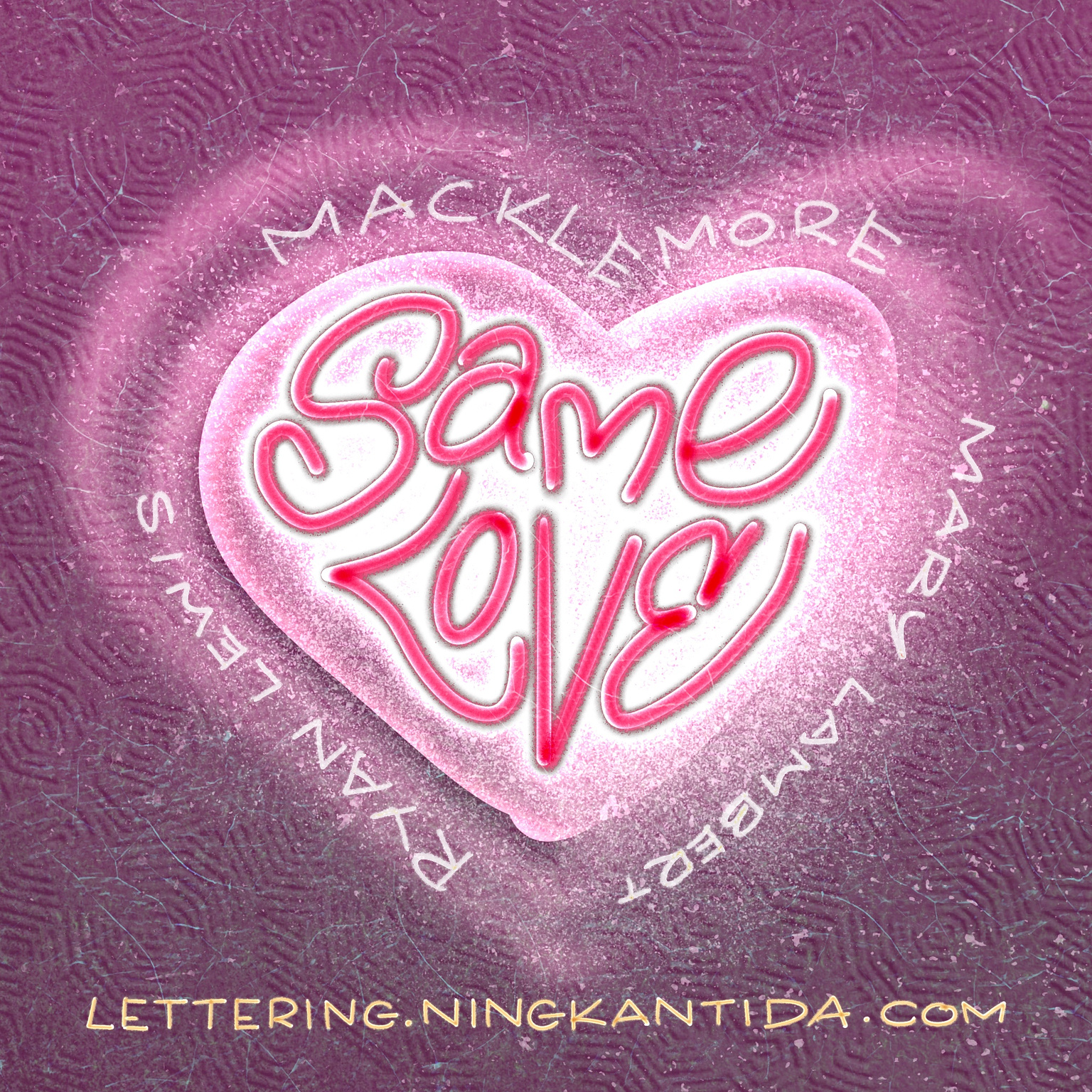
Pride Month Music 11-Same Love by Macklemore & Ryan Lewis featuring Mary Lambert
Happy Pride Month! 🌈🏳️‍🌈
As we approach the end of Pride Month, I’m creating lettering pieces celebrating music related to LGBTQIA+ community. My goal is to expose people to good music and artists while also help bringing the community filled with diversity together, since music is like a universal language that can touch anyone’s heart.
Same Love challenges a society filled with homophobia, prejudice, and outdated worldviews, while also carrying the hopes and dreams of the LGBTQIA+ community for a better future. The song is overflowing with raw, genuine emotion—I could truly feel the pain and struggles throughout, and it got me a bit teary the first time I listened.
Indeed, the world can be cruel, with hatred and bias approaching us from every corner, whether as a direct attack or in a subtle tone. But real change begins within ourselves, and it grows when we inspire those around us to change as well.
We must open our minds and our hearts to recognize that love is love, and to embrace it in all its beautiful forms. For there is nothing more powerful than a bond built on love and mutual understanding.
For the lettering, I want to capture the idea that a big heart and an inner light can truly change the world. I kept the design simple, because at the end of the day, that’s what matters most: love.
No matter how many bruises hatred and prejudice may leave, it’s love that helps us get back up every time the world tries to push us down. Love is our strength, our resilience, and the reason we keep moving forward.